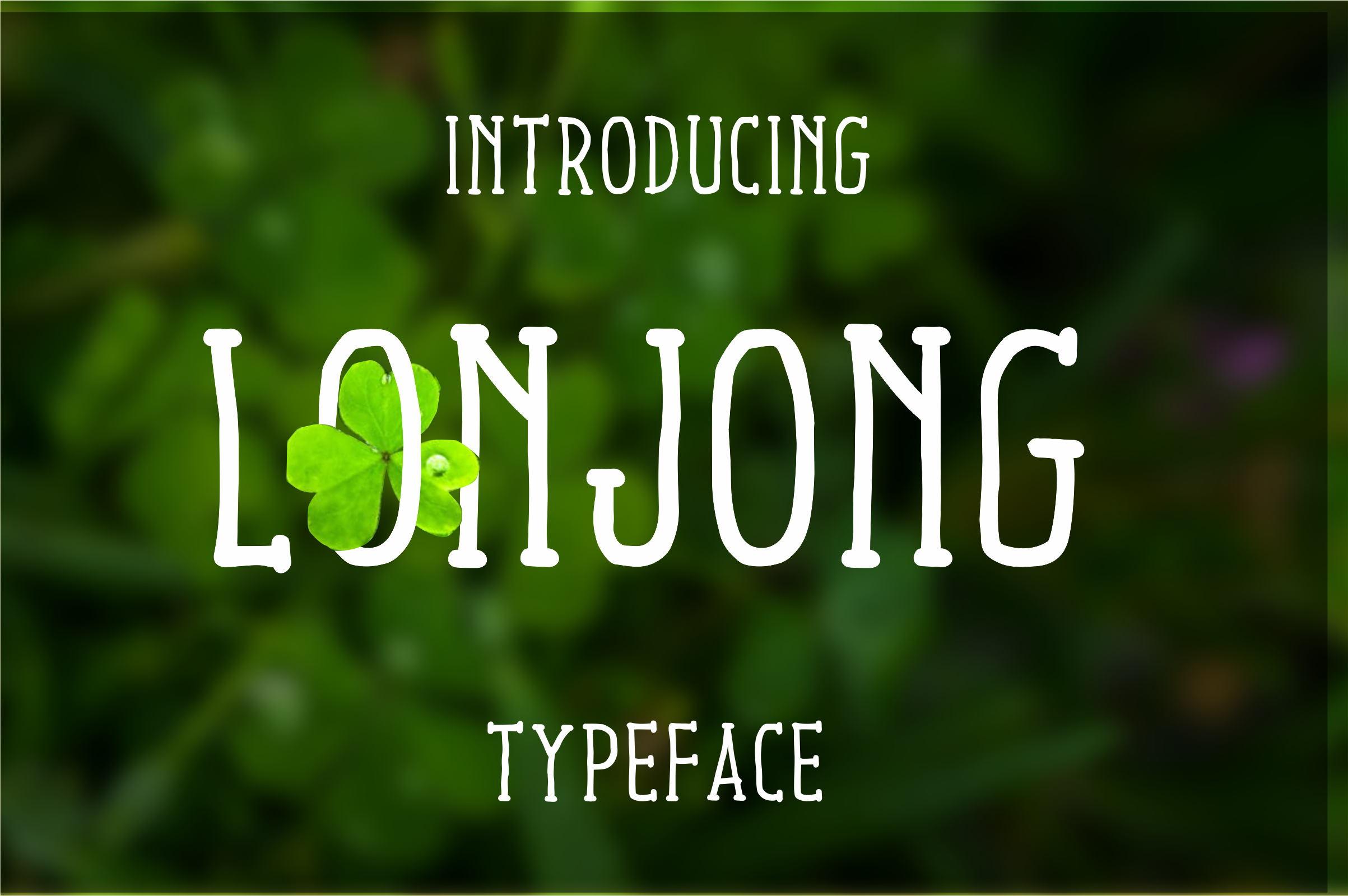
Lonjong Font
lonjong font created for celebrate your event. very useful for invitation,logo,greeting card,poster or other related project. files include: